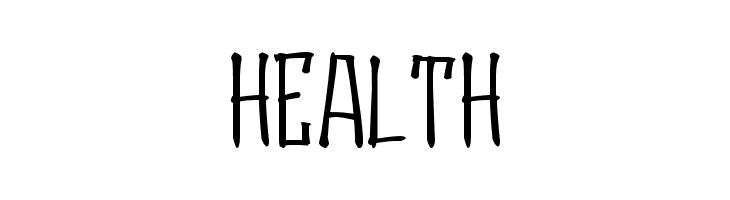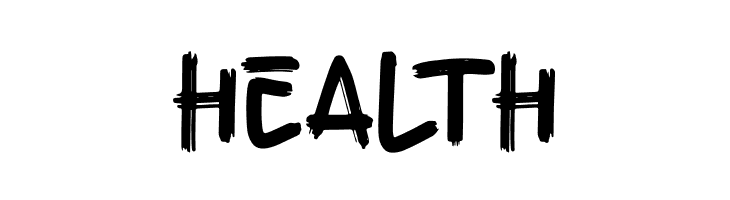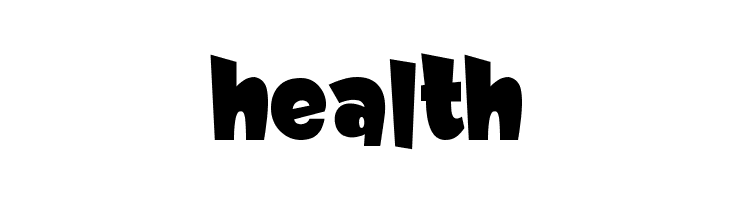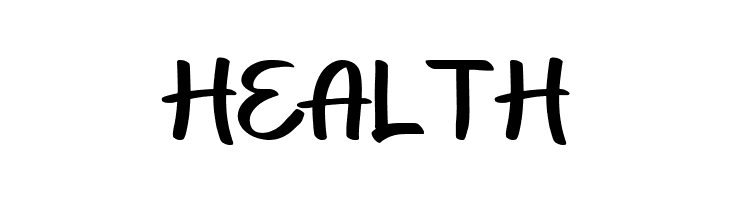
• Gasrux
A bold, hand-drawn font with an expressive and playful style.
• Gatrich
A bold, brush-style font with a dynamic and artistic flair.
• Gemini Brush
A bold, dynamic brush-style font with fluid, expressive strokes.
• GEOL Bold
A bold, abstract font with dynamic, fluid strokes and artistic curves.
• Gerald Townson
A stylish script font with elegant, flowing strokes and a handwritten feel.
• Get Relax
Playful handwritten font with a casual style.
• Gheloman
A lively and expressive script font with flowing, cursive letterforms.
• Ghenifer Claudia
A playful, flowing handwritten font with elegant loops and smooth cursive strokes.
• Ghost in Sunday
A spooky, dripping font perfect for Halloween themes.
• Ghost Night DEMO! DEMO
A playful and bold font with exaggerated curves and angles, perfect for creative projects.